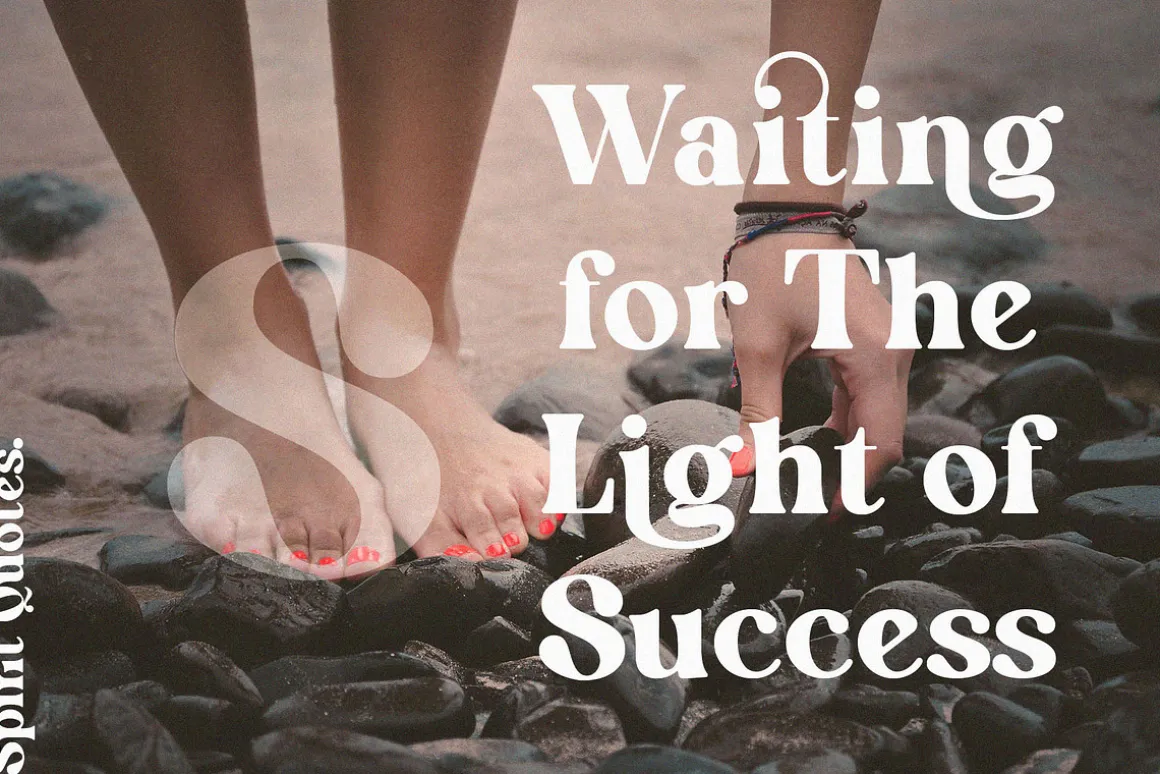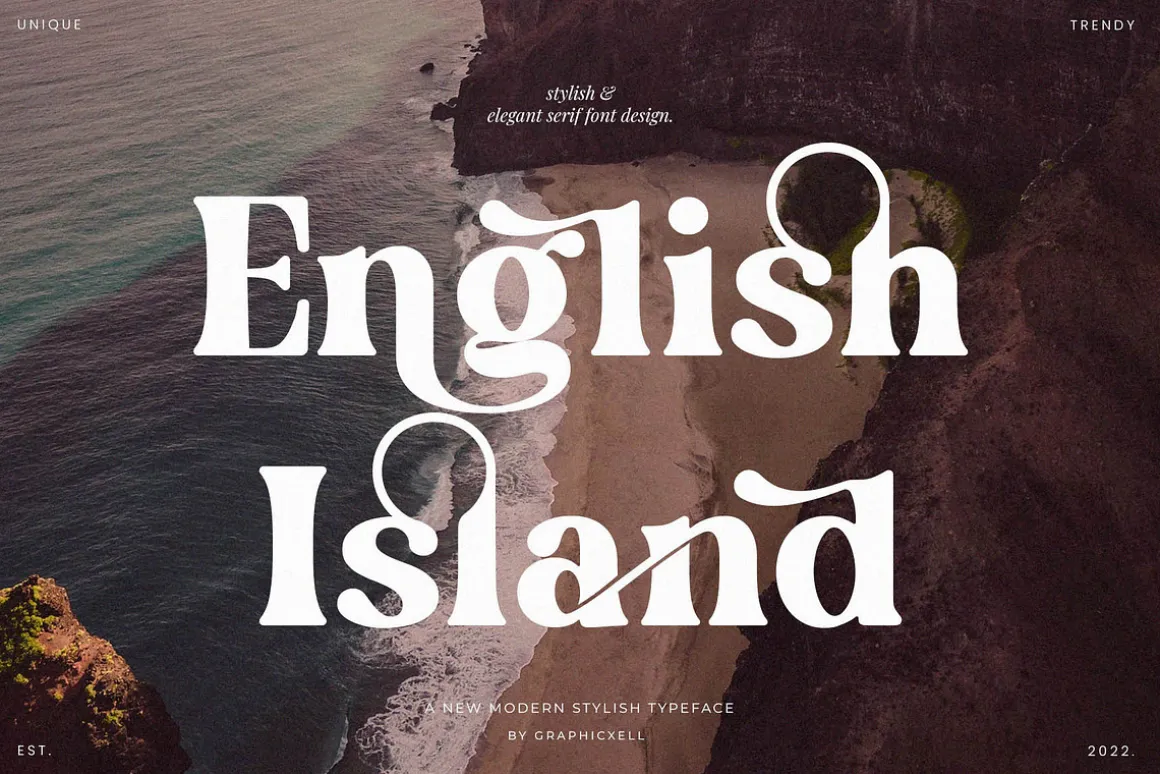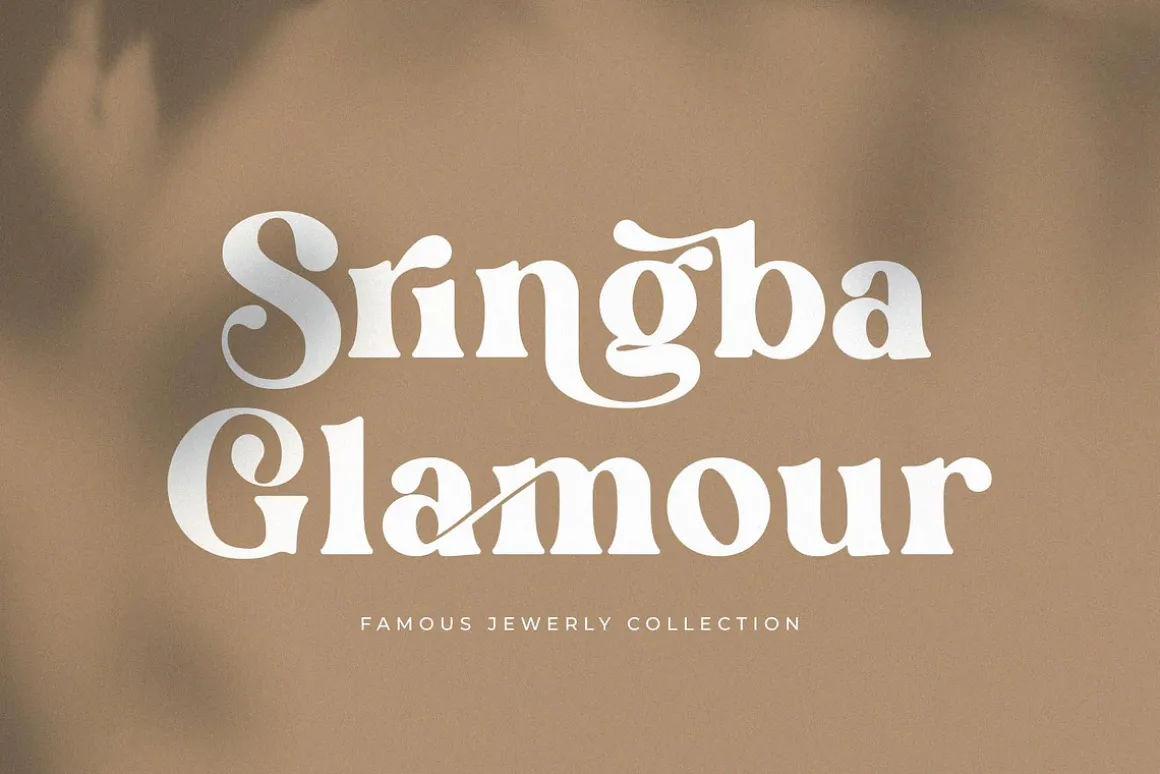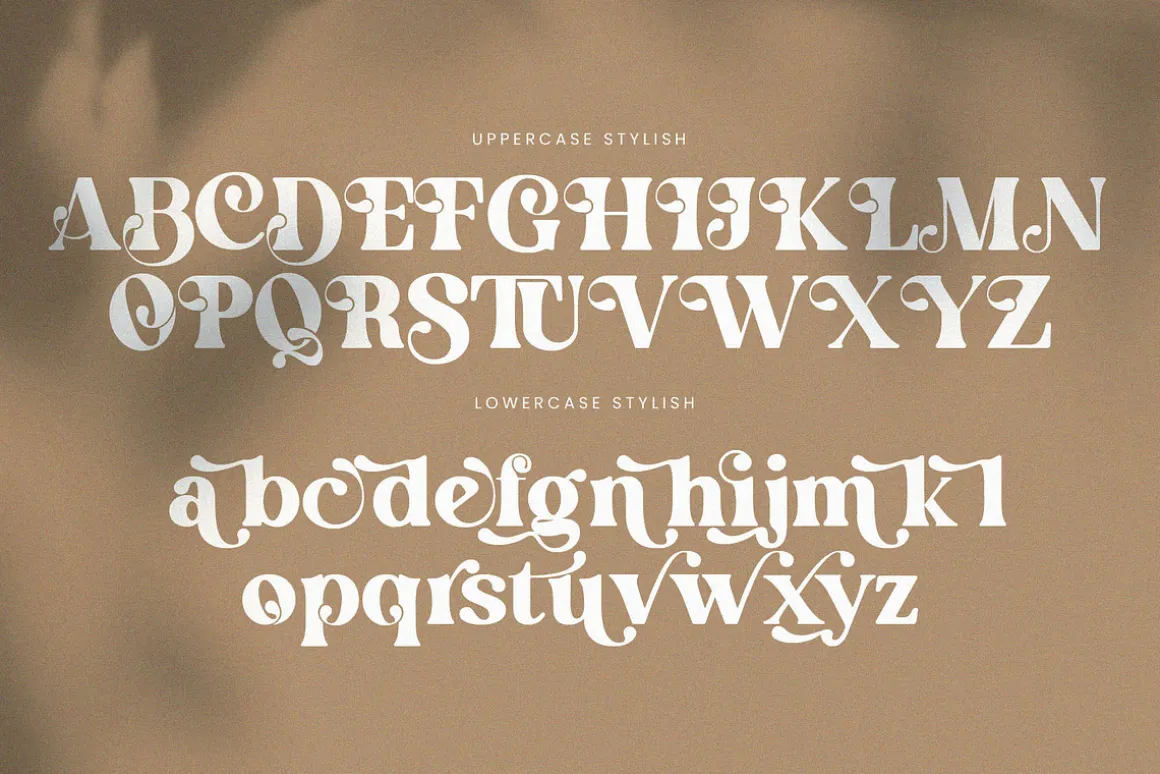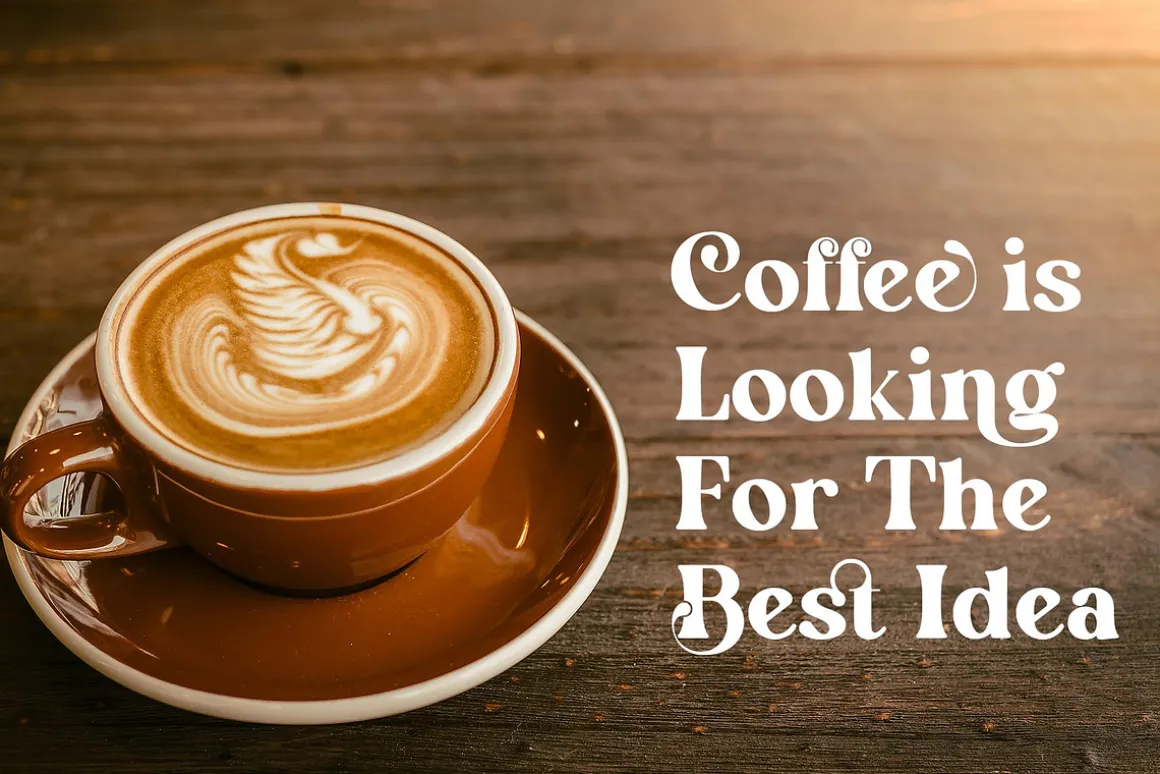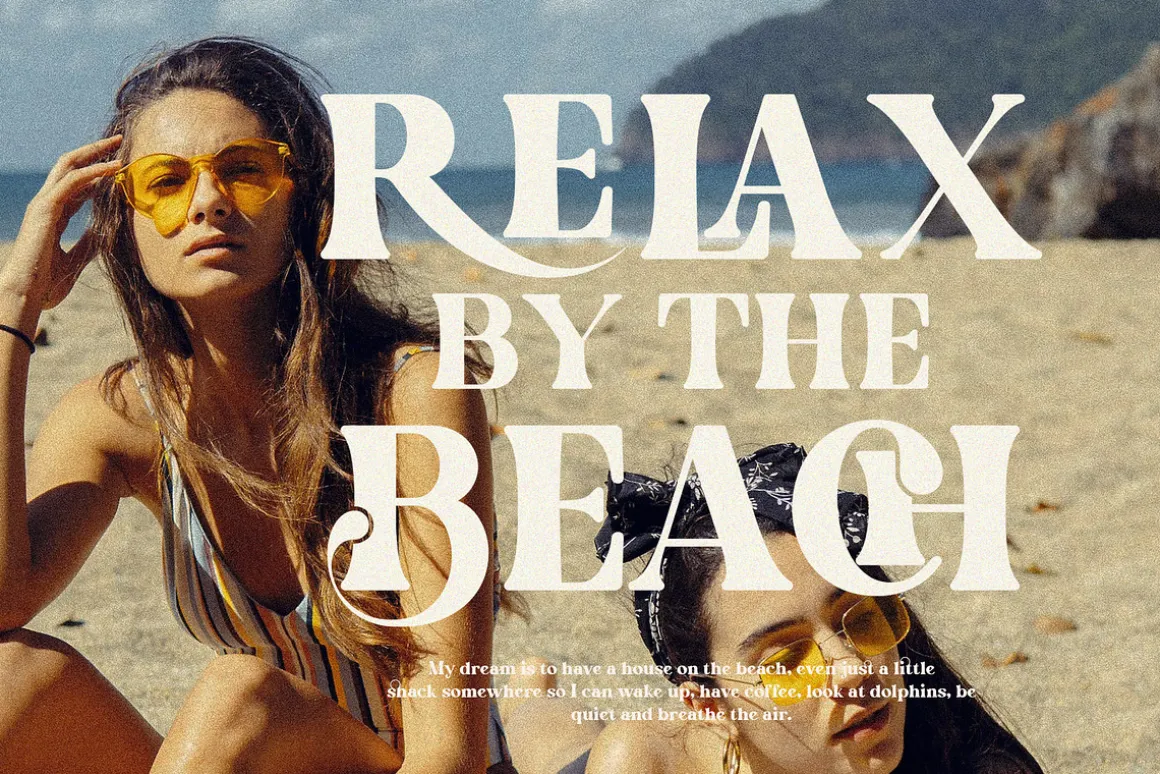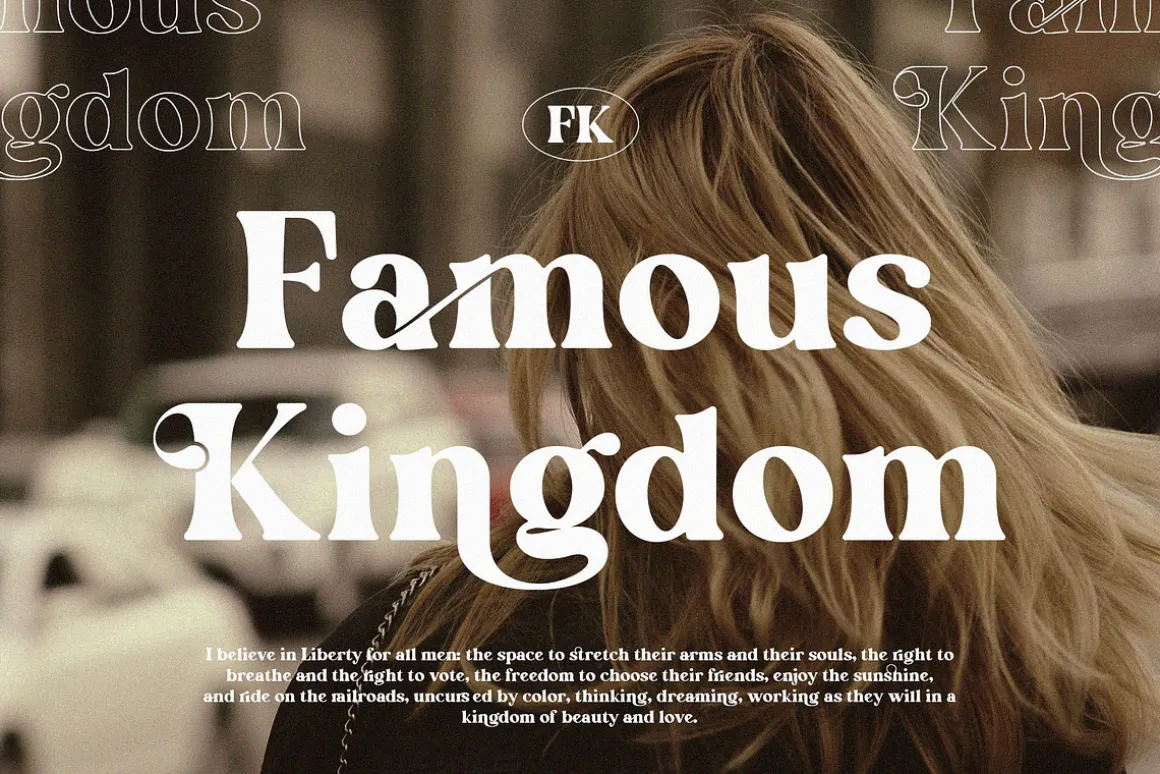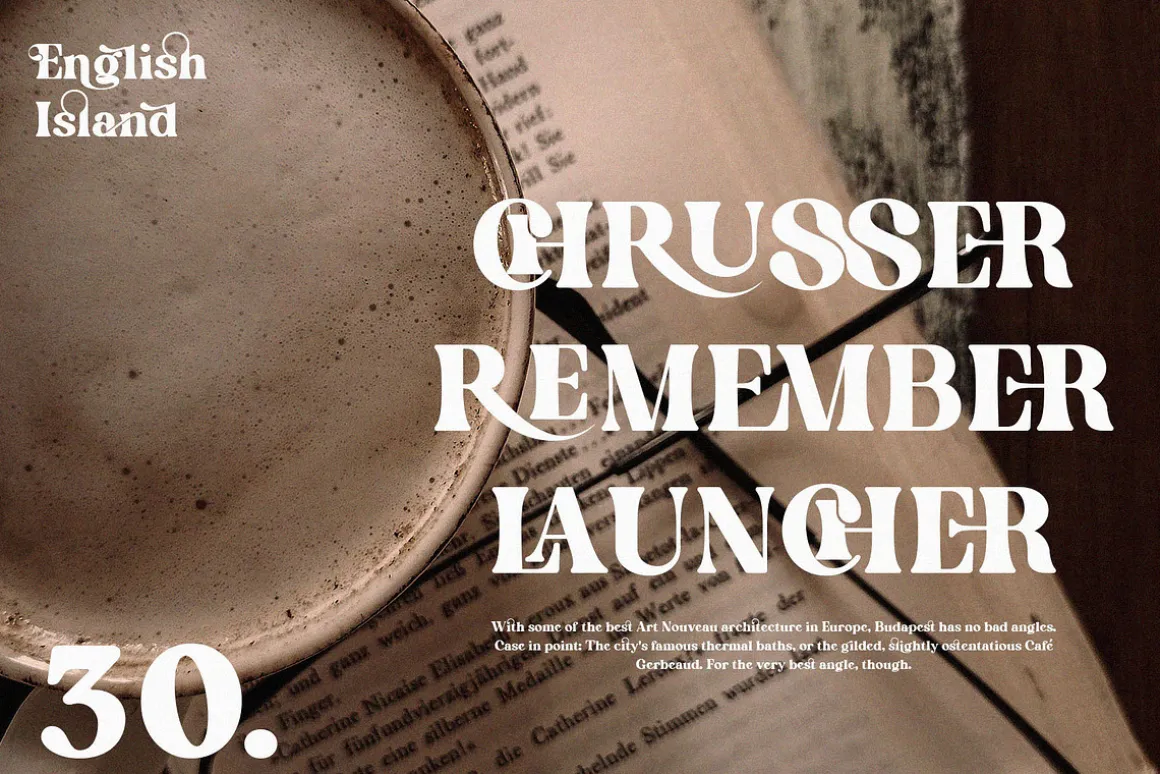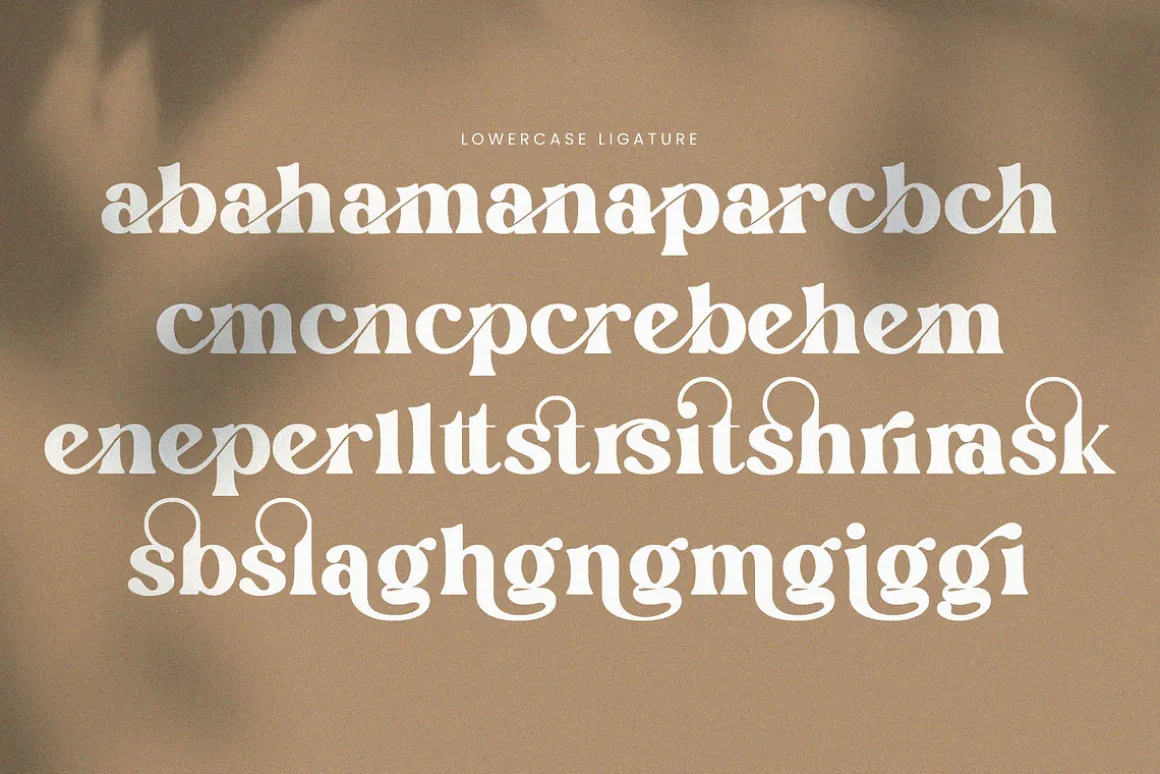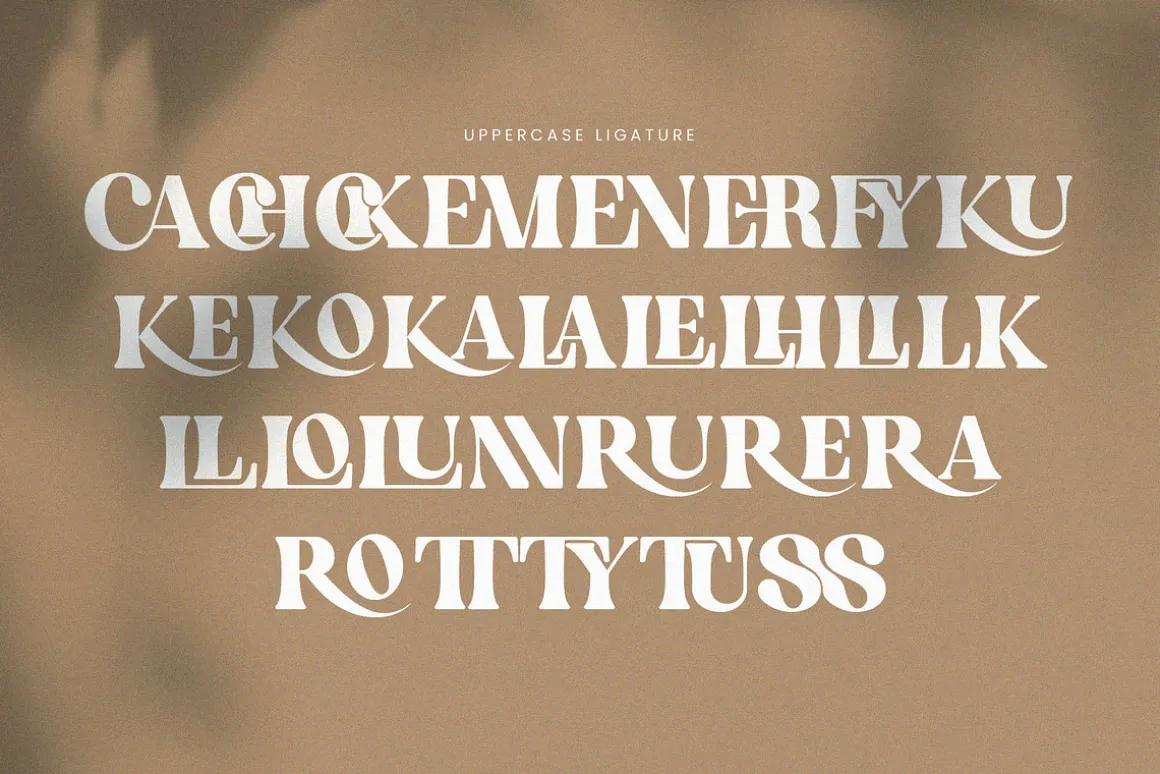
English Island Ligature Serif Font inspired by the famous minimalist logo perfect for the purposes of designing templates, brochures, videos, advertising branding, logos, invitation, layout design, elegant crafting, beauty design and more.